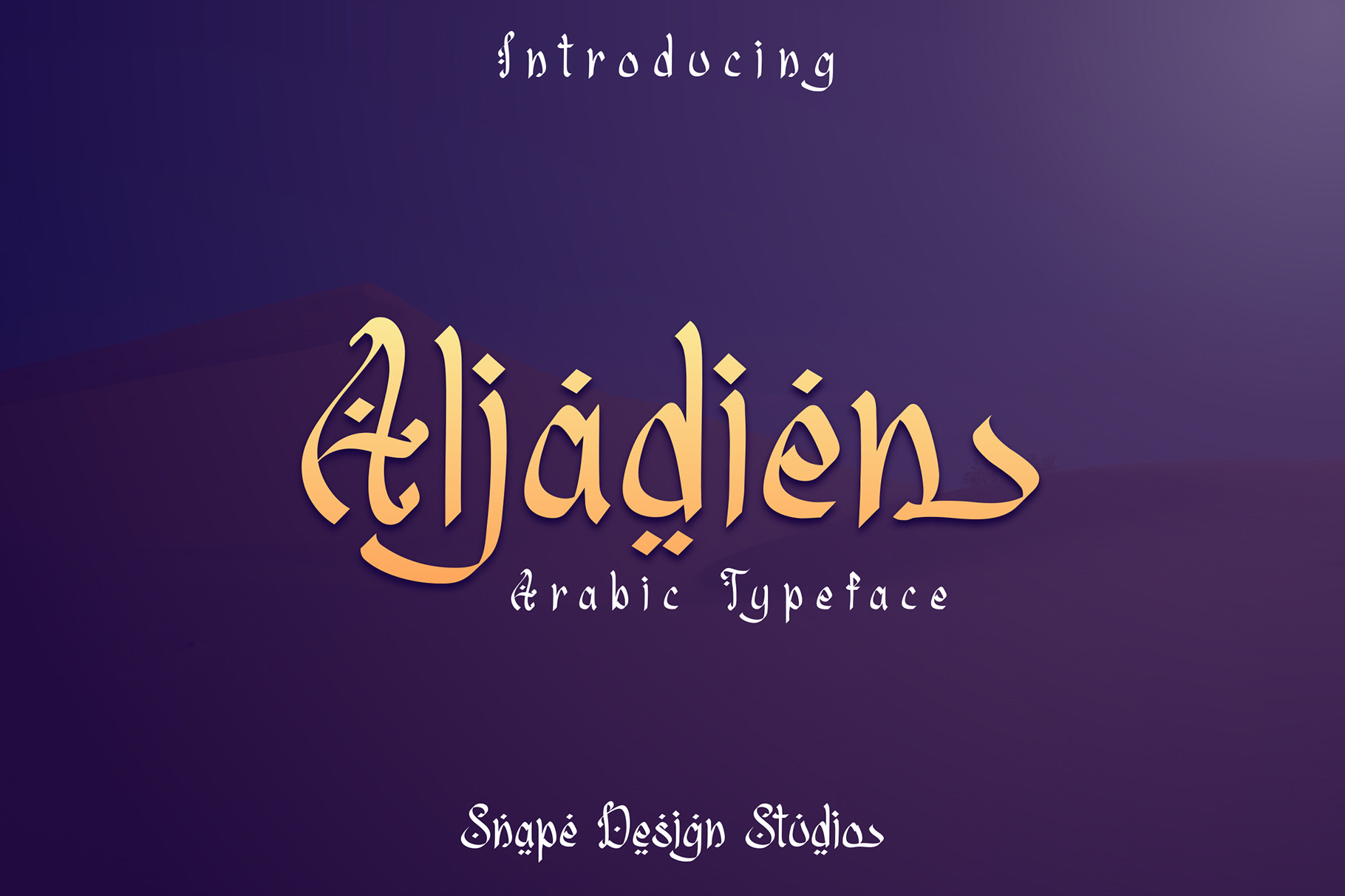
Aljadien - Arabic Typeface
Aljadien is a display font inspired by the style and feel of the Middle East Arabic, Also suitable for movie, documenter, film, logo, poster, game, book cover, headlines, title and many more projects. Add this font to your creative ideas and notice how it will make them stand out!